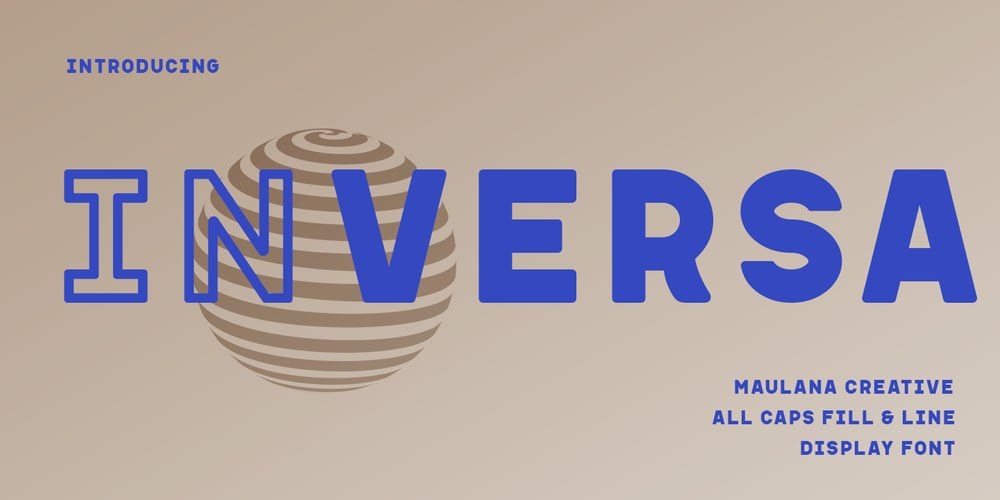
MC Inversa Font Family was designed by Gilang Maulana and published by Maulana Creative. MC Inversa contains 2 styles and family package options. Inversa is a Display sans font with two style. Regular Fill and Outline stroke, fun character with a bit of ligatures and alternates. To give you an extra creative work. Inversa font support multilingual more than 100+ language. This font is good for logo design, Social media, Movie Titles, Books Titles, a short text even a long text letter and good for your secondary text font with script or serif. Make a stunning work with Inversa font. Cheers, Maulana Creative